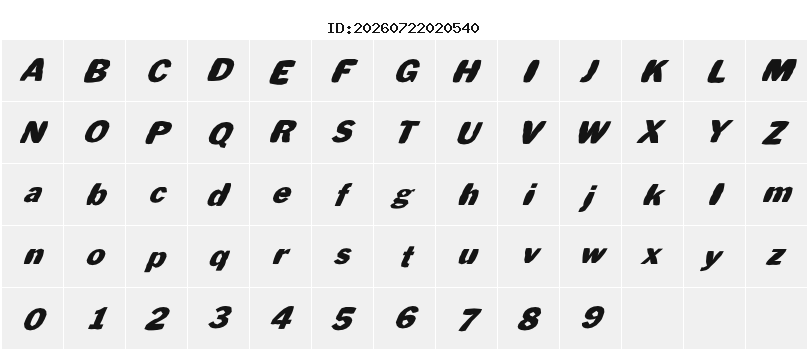
• Font Name: FZ BASIC 56 MANGLED ITALIC
• Font ID: FZ BASIC 56 MANGLED ITALIC
• Full Font Name: FZ BASIC 56 MANGLED ITALIC
• PostScript Name: FZ-BASIC56MANGLEDITALIC
• Character Count: 220
About FZ BASIC 56 MANGLED ITALIC.ttf
FZ BASIC 56 MANGLED ITALIC.ttf is a modern, elegant sans-serif font designed for ultimate readability and visual harmony. Perfect for branding, headlines, web design, and print materials.